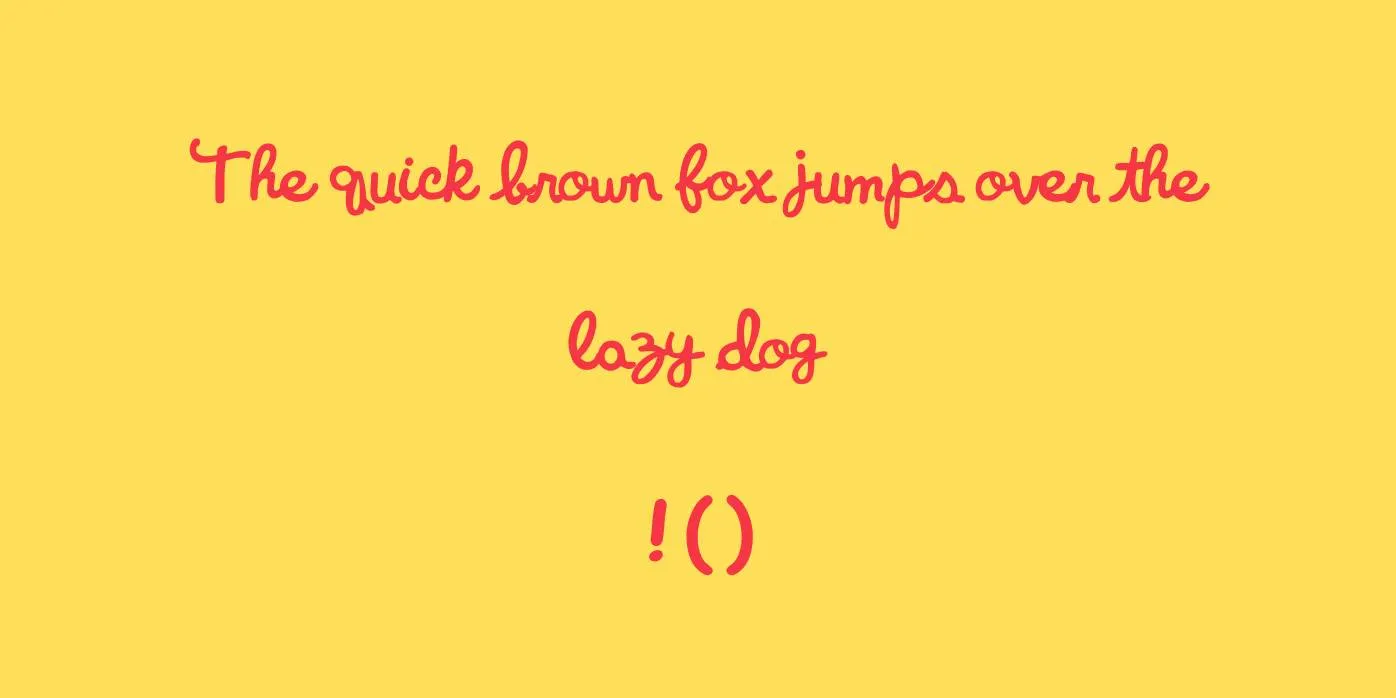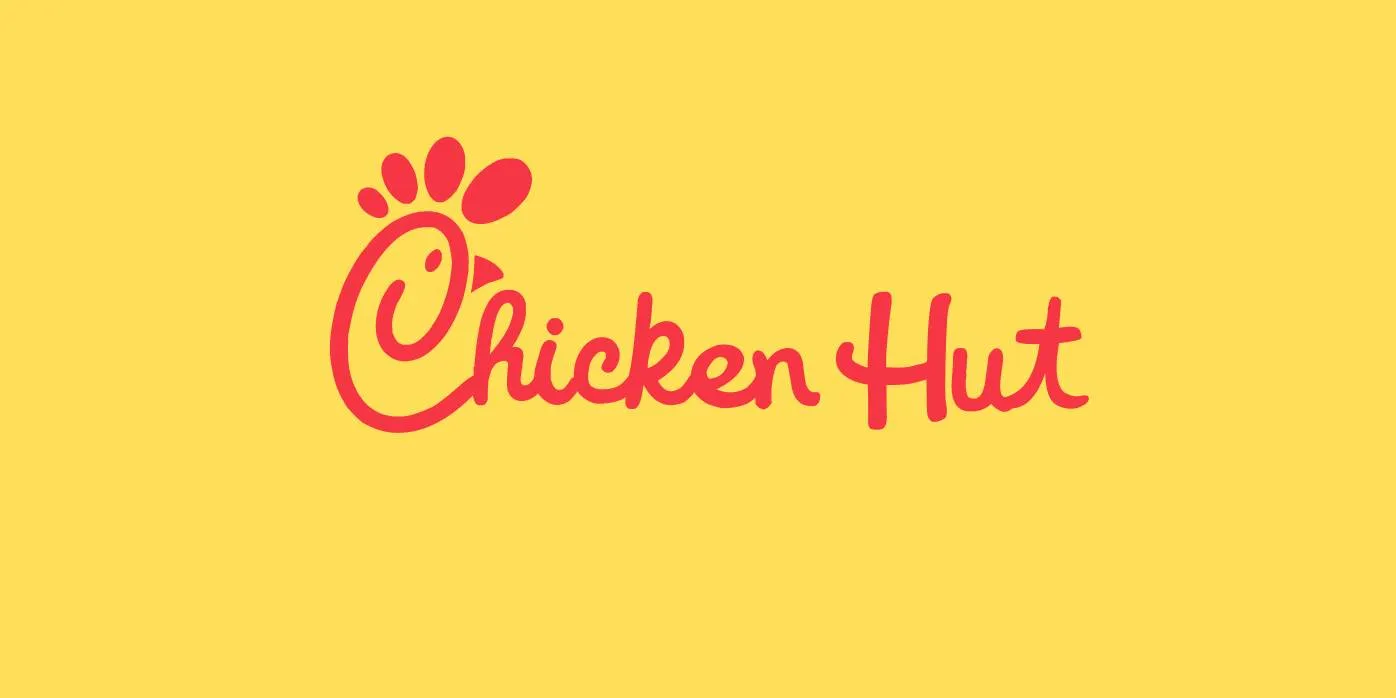
Chicken Hut Font
Chicken Hut Font is designed by High Logics font and is under the category of script texture family. If you are a fan of eating different foods you must enjoy this font style in your projects. It contains 89 characters, 93 glyphs, and 1000 units per Em. The weight of the font is normal and its width is medium (normal).
Unicode supported 2.0 and BMP only. This font has a chicken head sign on its starting letters which makes it look more attractive. An online generator tool supports this font to change your simple text into a stylish look without downloading the font. You can perform copy and paste the format also in it.
It has characters, symbols, numbers, small letters, capital letters punctuations, and special characters. You can make all foods-related projects in which chicken is used. It is a very good font to use for making logos and tiles for any kind of restaurant, hotel, or other food court. For making website designs and graphic designs in different applications like Adobe Photoshop, CSS, and Canva you can also use this font.
It is the best option for making banners and brochures related to food or chicken. For making food menus for fast food and other food places you can also use it. It attracts children as well. To make recipe book covers, food magazine covers and stylish flyers for advertisement you can use this font for both print and digital media.
This is a very interesting font with a very cut look. It is a script-type font and can be used to design many designs in the food industry. Can I use Chicken Hut for making Food menus? Yes, it can be used to design so many food-related projects.
Can I use Chicken Hut Font for branding purposes? Yes, you can use this font for branding it looks good in restaurants, food courts, and other food-related places.